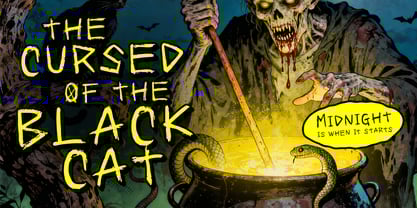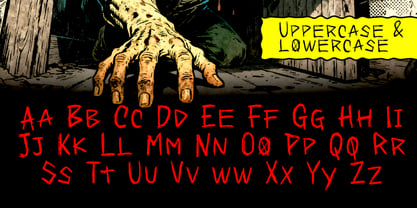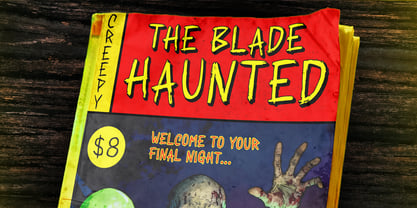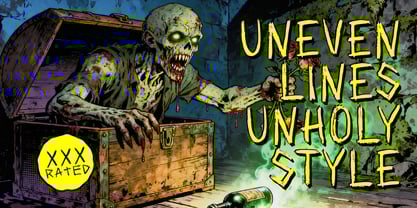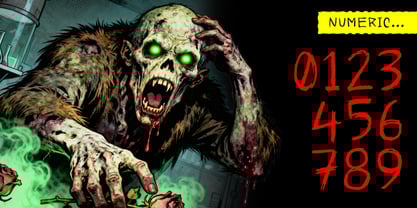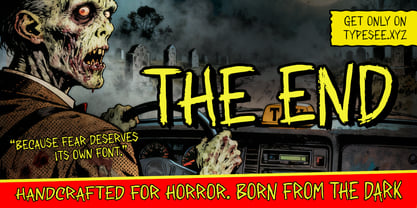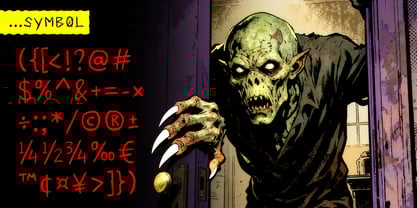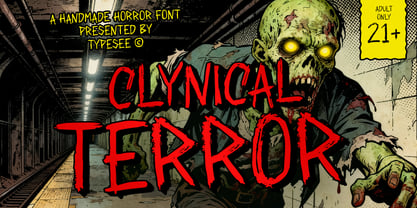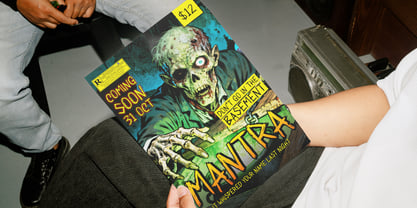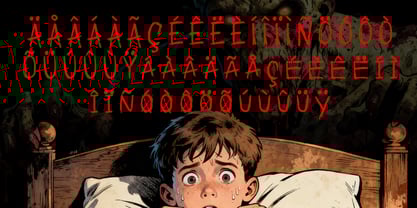
Clynical Terror
Die Schriftfamilie Clynical Terror wurde von Rizka Prayuda, Muhammad Mirza Azhmi entworfen und von Typesee veröffentlicht. Clynical Terror enthält 1 Stile. Mehr über diese Familie
Clynical Terror is a handcrafted horror font that embodies chaos, decay, and psychological unease. Designed with jagged brush lines and uneven edges, it captures the essence of terror straight from a nightmare. Each letter feels alive scratched, torn, and dripping with dread making it an excellent choice for horror-themed projects, movie posters, game titles, or eerie packaging designs. Its raw and expressive form commands attention and instantly builds tension in any visual composition.